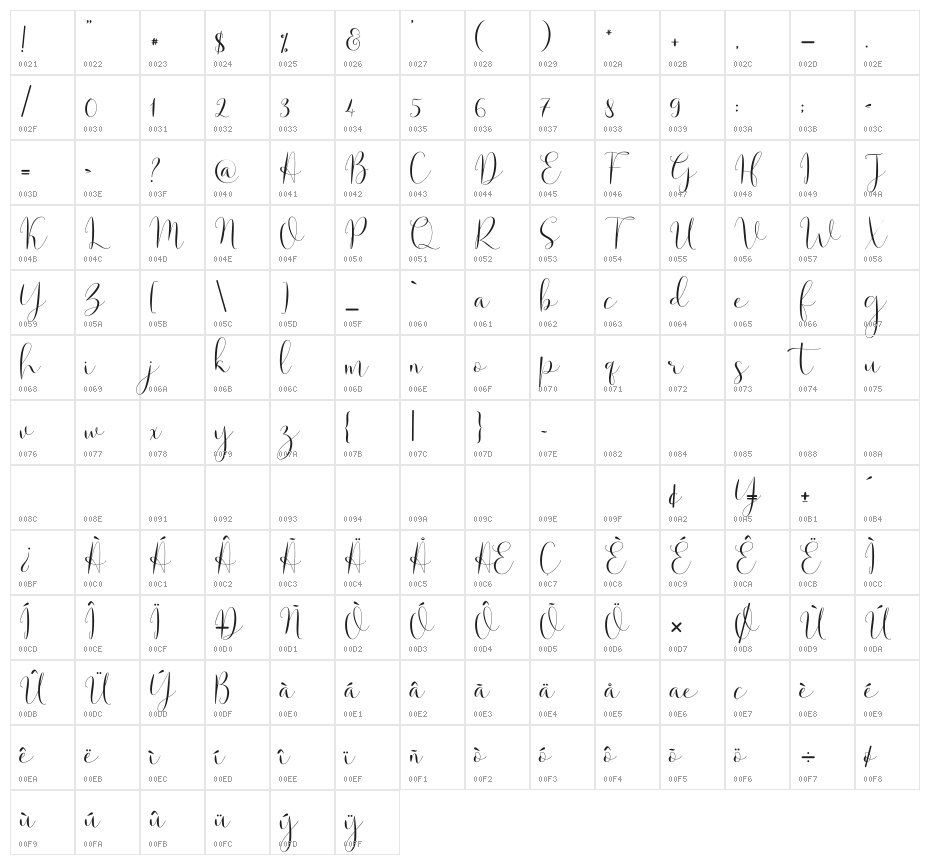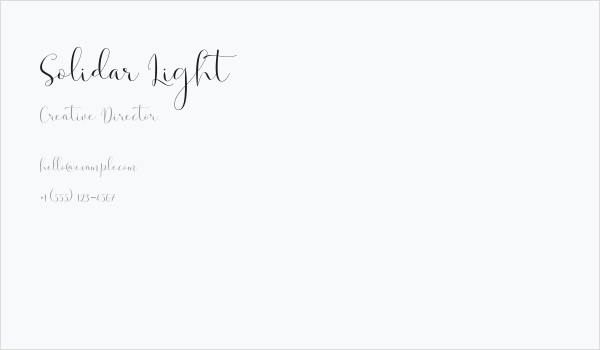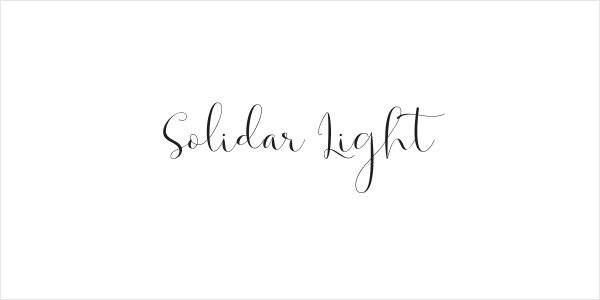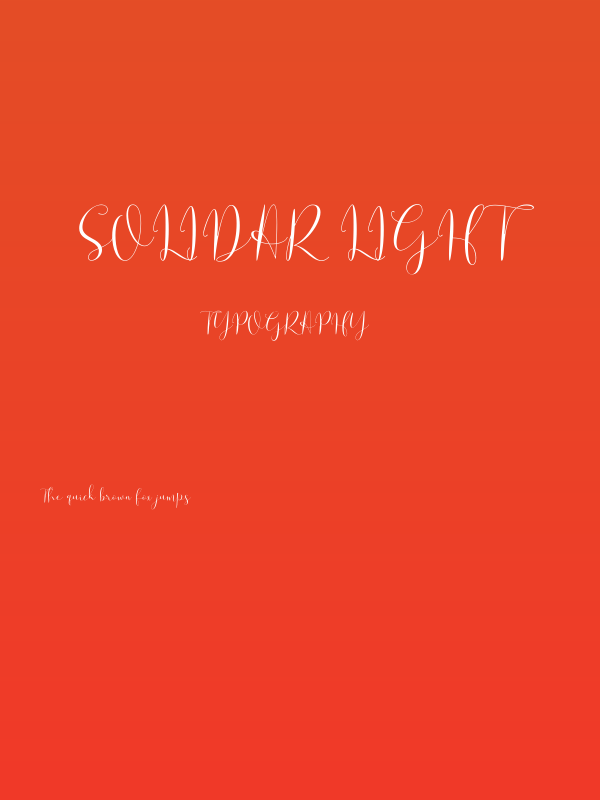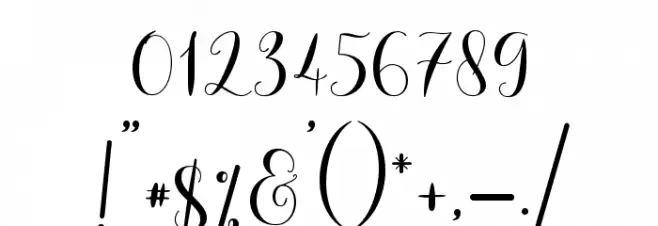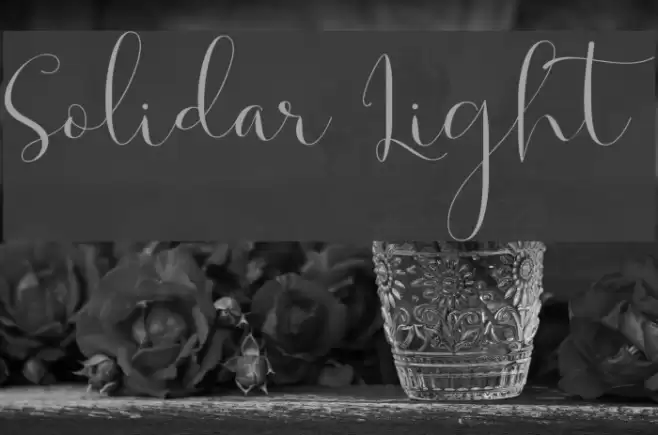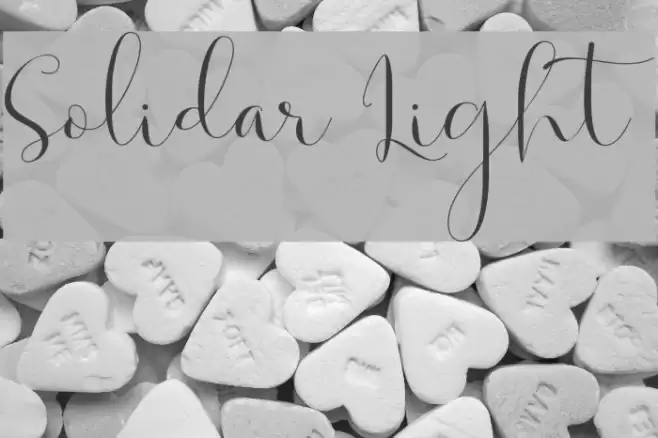
Solidar Light Font
Solidar Light Description
This font features an elegant and flowing script style, characterized by its delicate and intricate letterforms. The uppercase letters exhibit a graceful, looping design, while the lowercase letters maintain a consistent fluidity, enhancing the overall aesthetic. The numerals are designed with a similar flair, ensuring cohesion across all characters. Special characters are thoughtfully integrated, maintaining the font's sophisticated appearance. The thin strokes and high contrast between thick and thin lines contribute to its refined and stylish look, making it ideal for formal and decorative applications.
| Overall Style | Elegant, Decorative |
| Use Case | Headlines, Invitations, Branding |
| Proposed Projects | Ideal for wedding invitations, elegant branding, high-end product packaging, and decorative headings. |